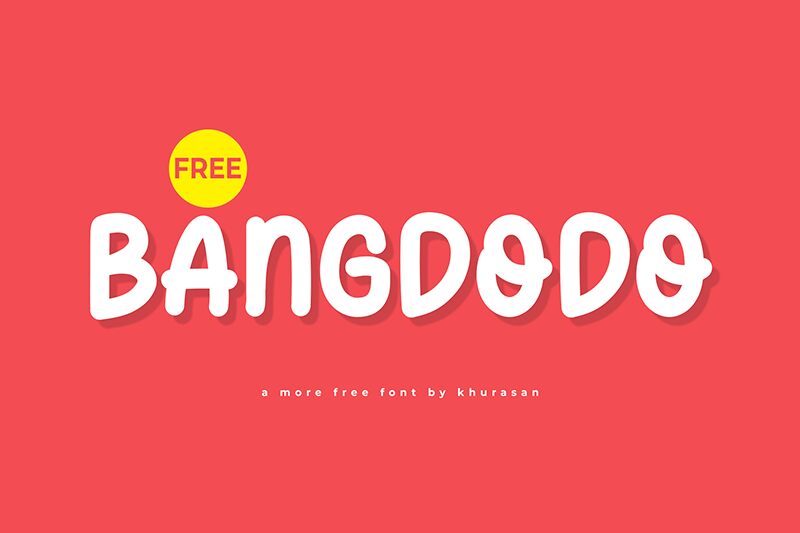
Bangdodo
Bangdodo font by Khurasan is a cartoon-inspired display typeface with rounded, bubbly characters. An excellent combination of retro vibes and modern digital technology, it takes your eyes on a trip down memory lane with its whimsical charm and animated look. The style creates an eye-catching font that makes even the simplest design pop right out of the frame!
This free cartoon display font can be used for children’s book ideas, coloring books, comic books, or video games. Have fun designing toy packages with this lovely typeface or introducing it to websites whose target audience includes young children. All in all, it works great for light-hearted and playful projects meant to leave users smiling!